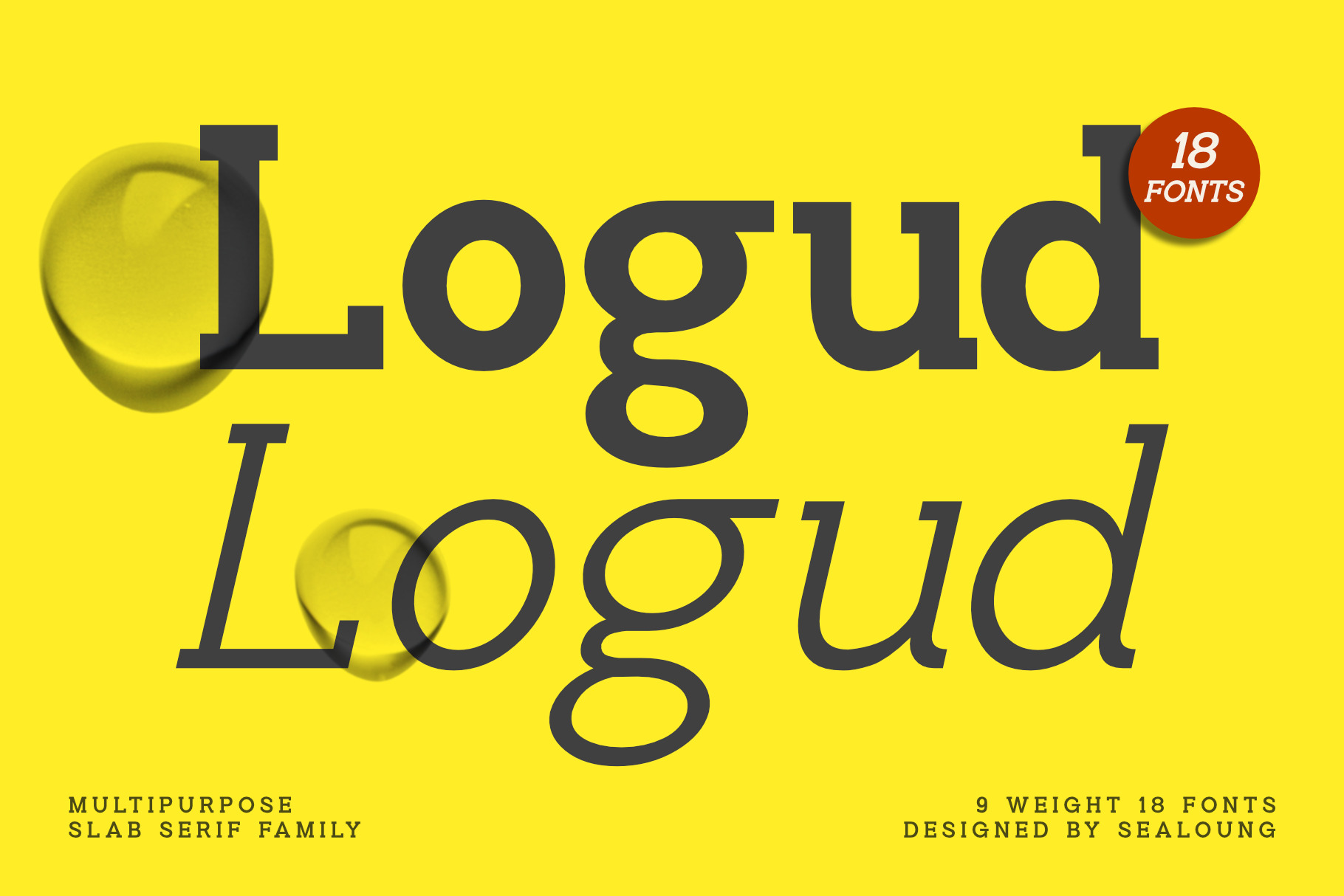
Logud | Slab Serif Family 18 Fonts
Logud is designed for branding. The initial characters are bold and chunky, yet the thin strokes and flowing italics give it a versatile and unique family set. The glyphs are crafted with low-contrast strokes, short ascenders and descenders, and small caps. Logud consists of 9 weights ranging from Hairline to Black, each with matching italics. It contains more than 350 glyphs with several OpenType features such as standard and discretionary alternates, fractions, etc.
Multilingual Features : Logud supports a wide range of languages, making it a versatile choice for international projects.
Alternate Characters : Logud includes of alternate characters to enhance creativity and Offers alternative designs for certain characters to provide different stylistic options.
With its robust set of features and stylish design, Logud is the perfect choice to make your branding projects stand out. We hope you enjoy using our font as much as we enjoyed creating it.